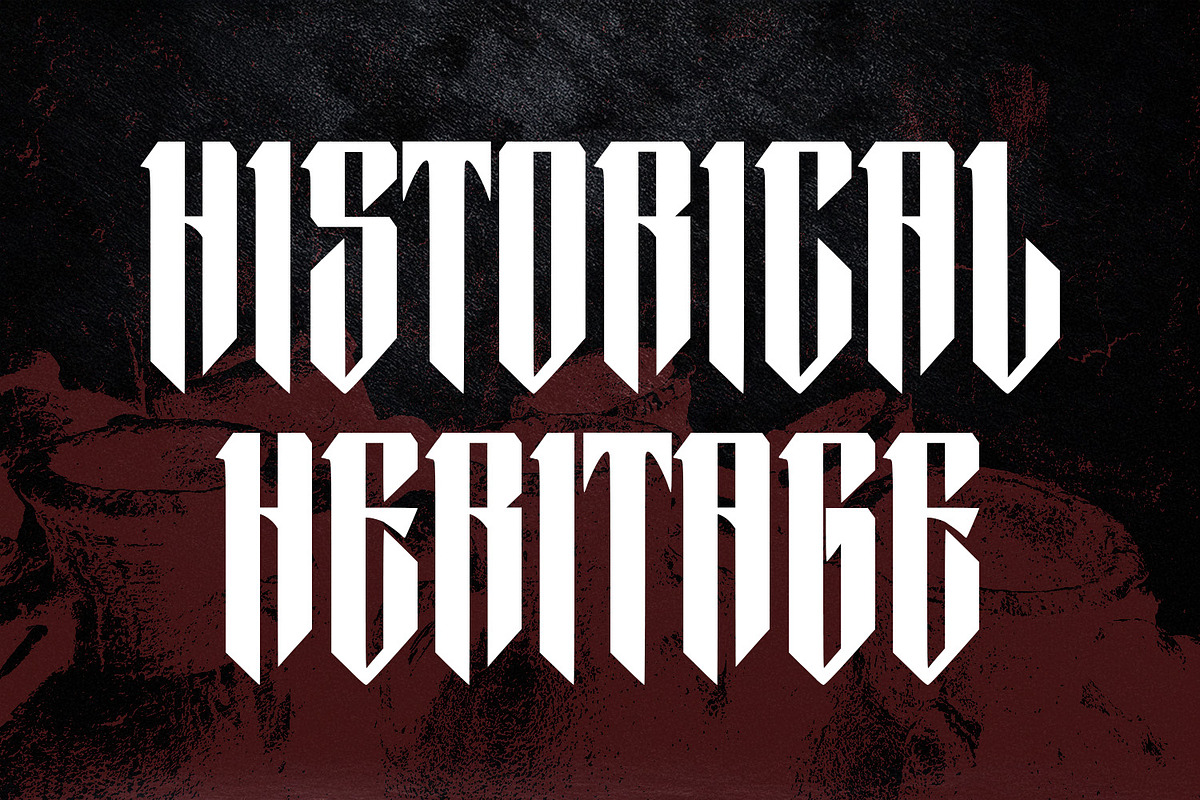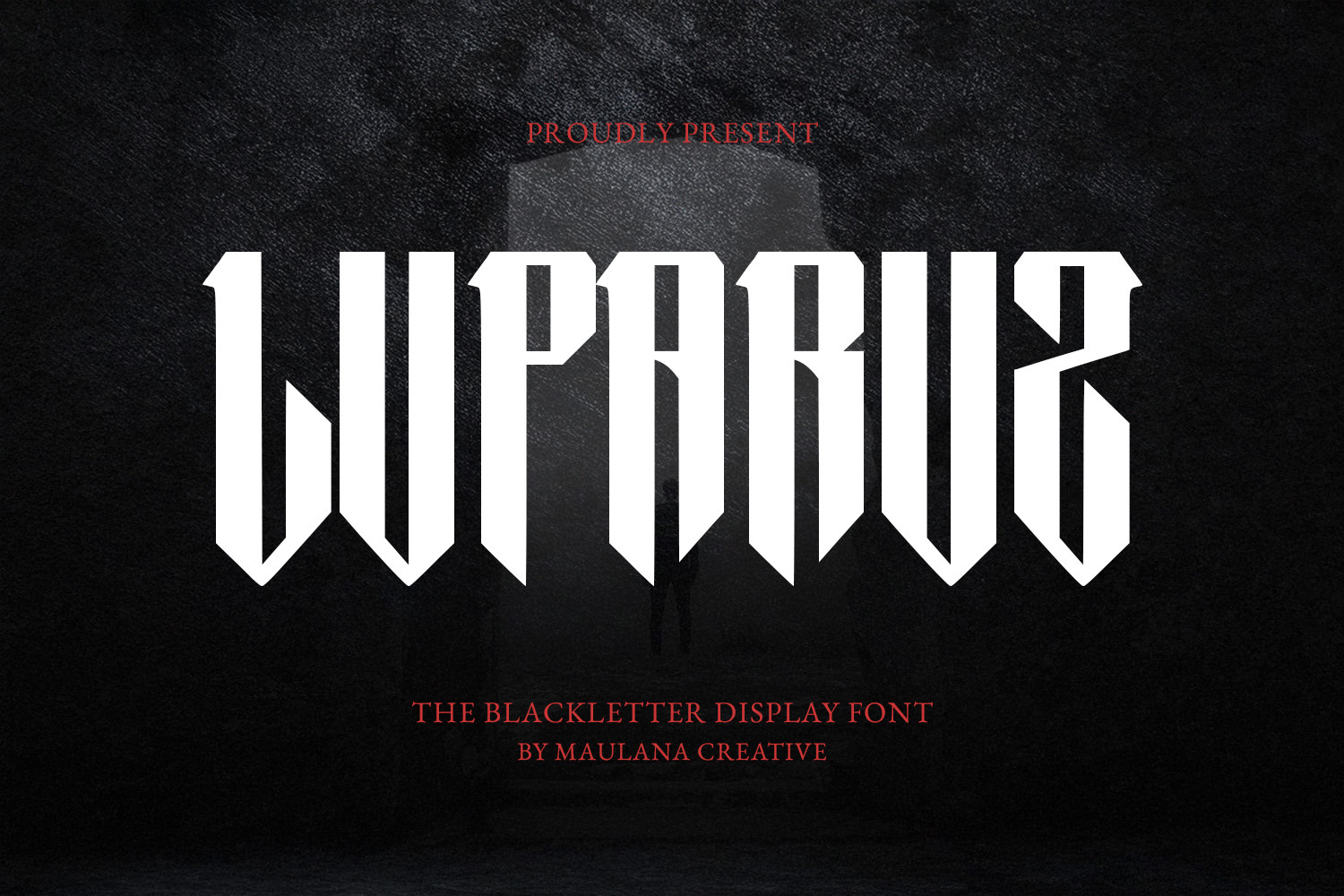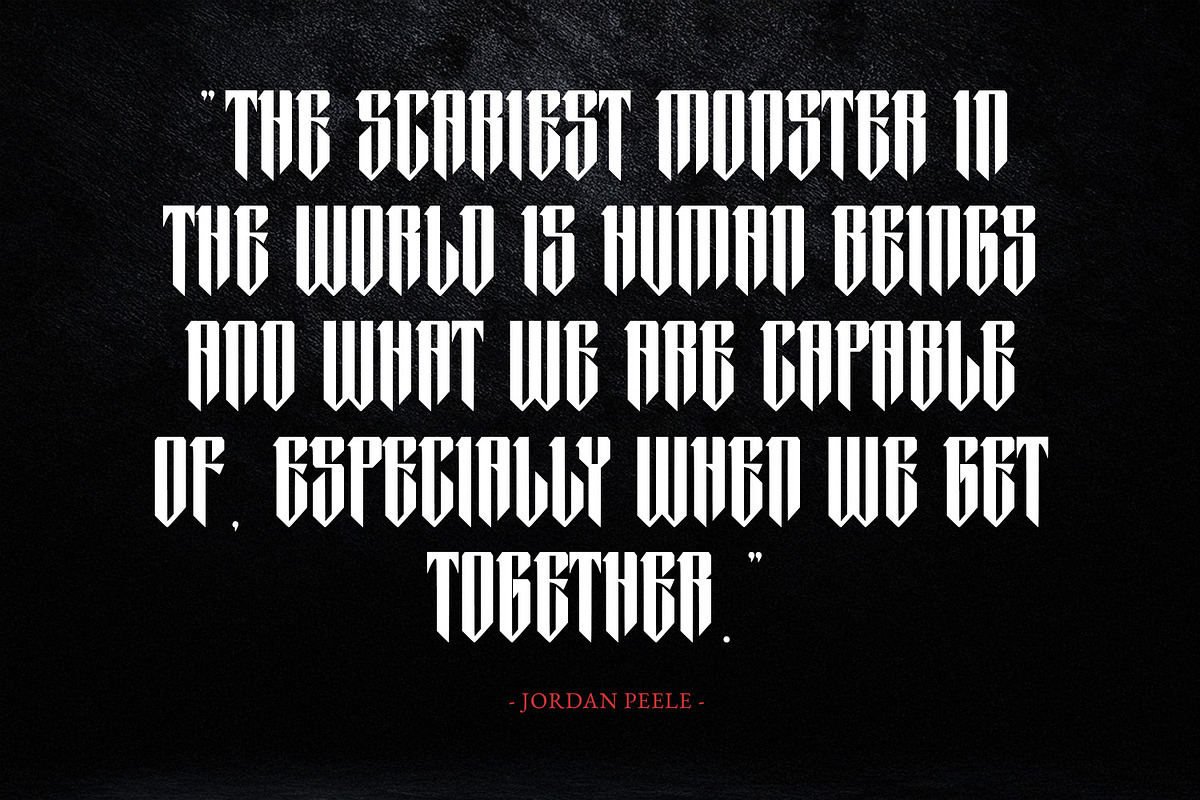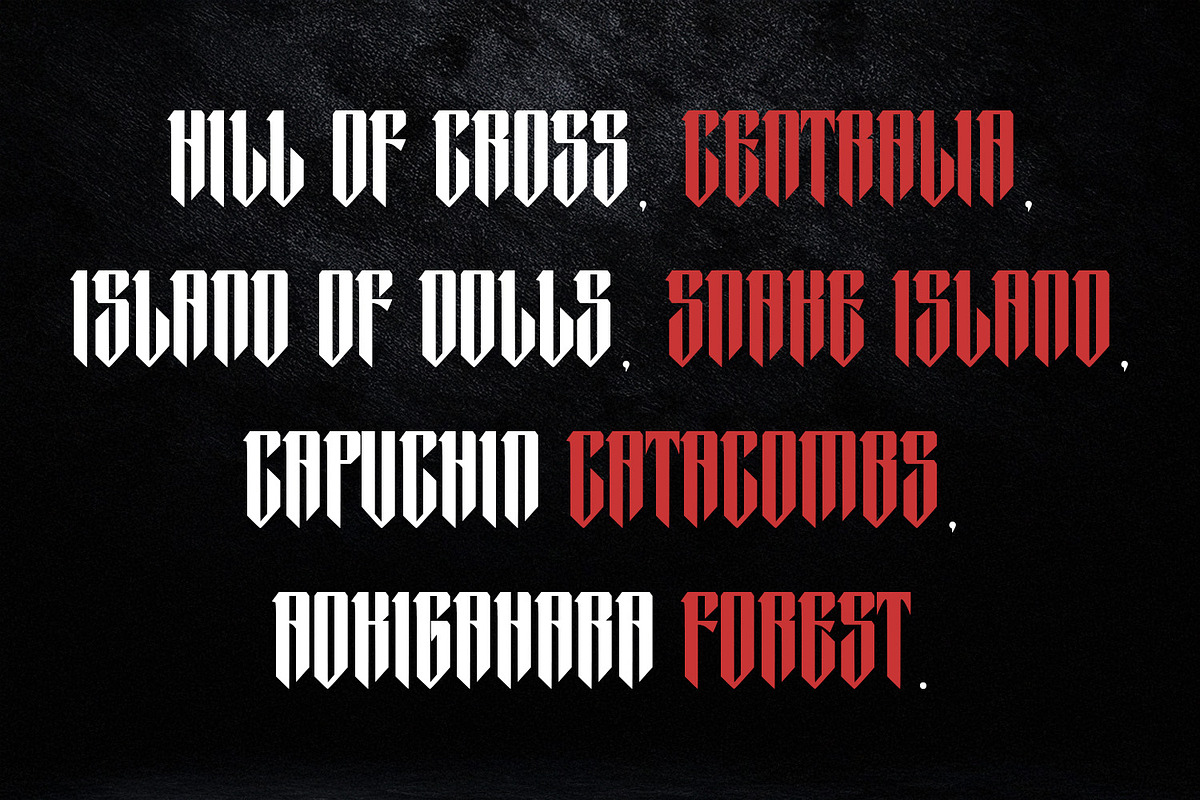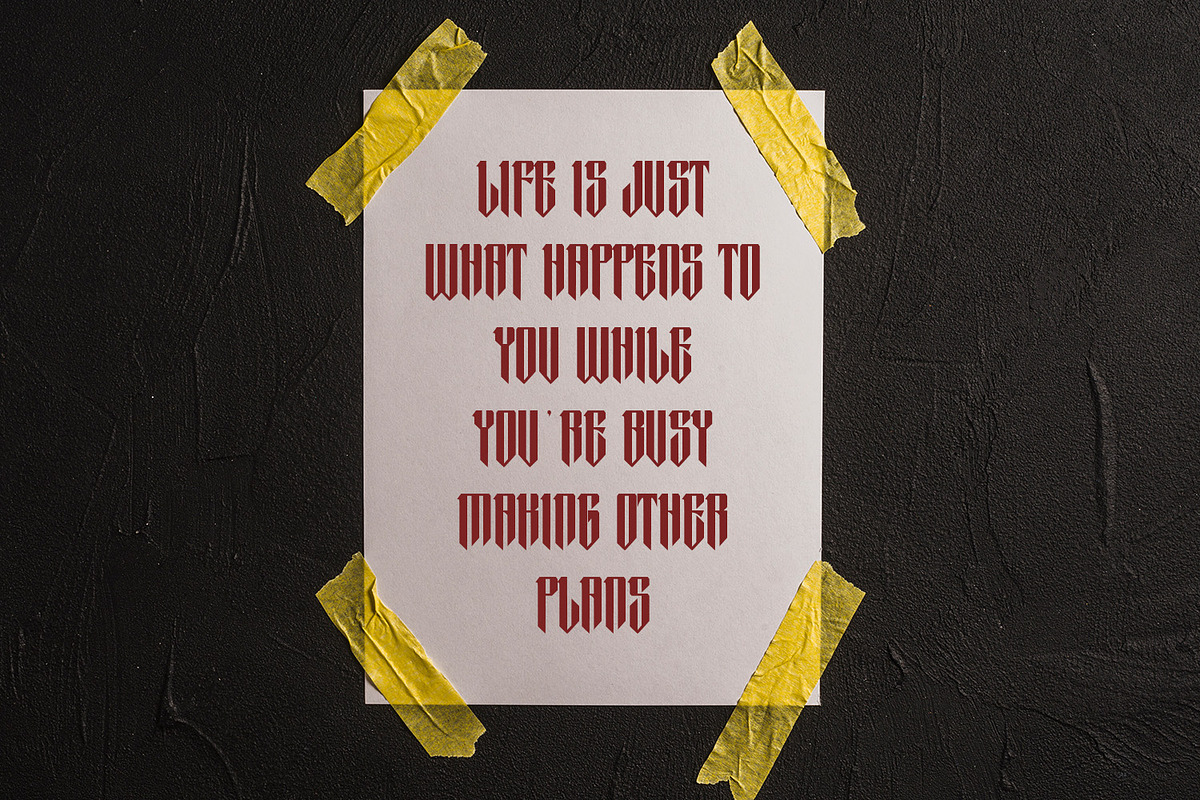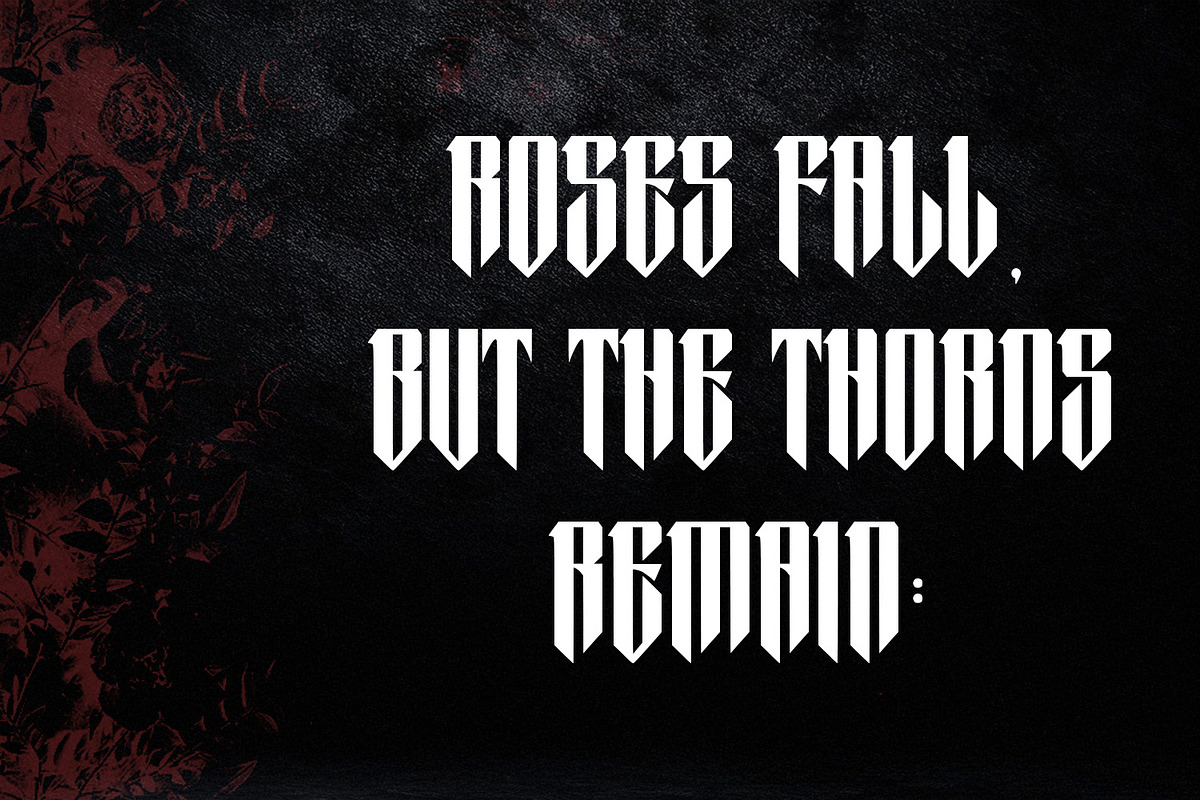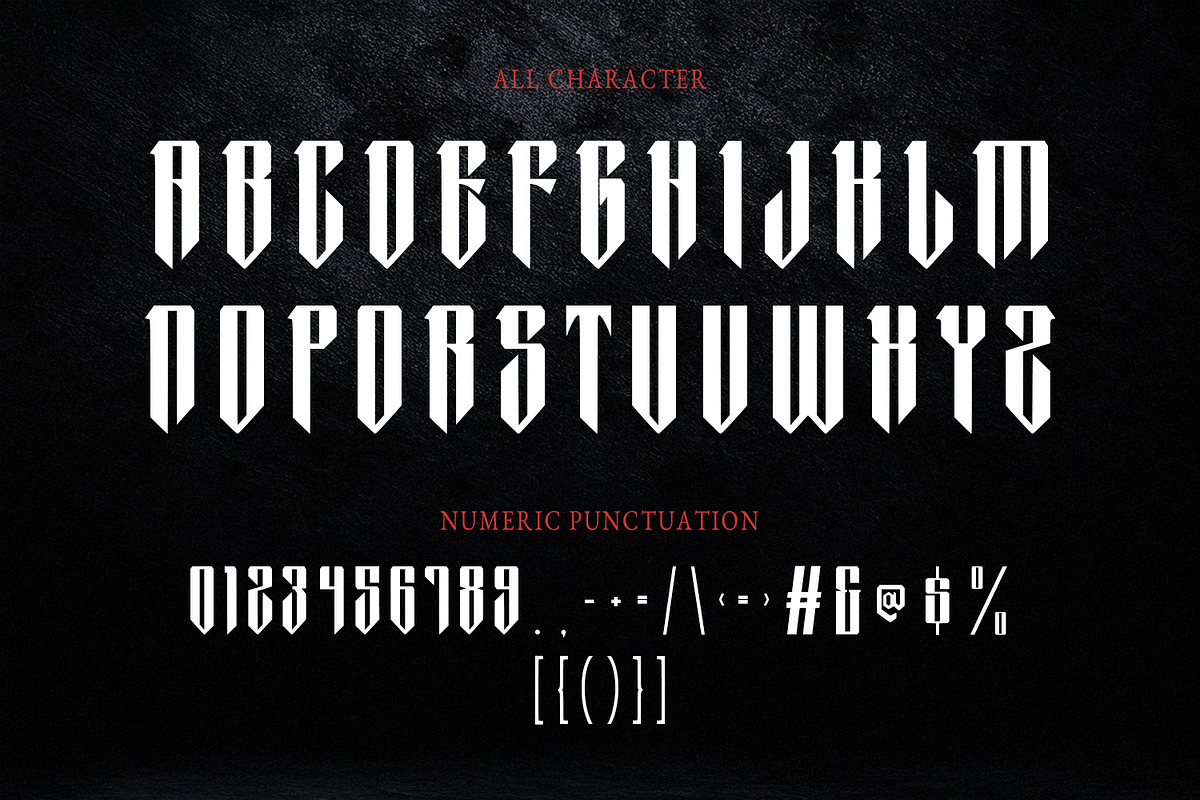
Luparuz Blackletter Display Font
Luparuz Blackletter Display Font. Heavy stroke and vintage character. To give you an extra creative work. Luparuz display font support multilingual language. This font is good for logo design, Social media, Movie Titles, Books Titles, a short text even a long text letter and good for your secondary text font with script or serif. Make a stunning work with Luparuz font.